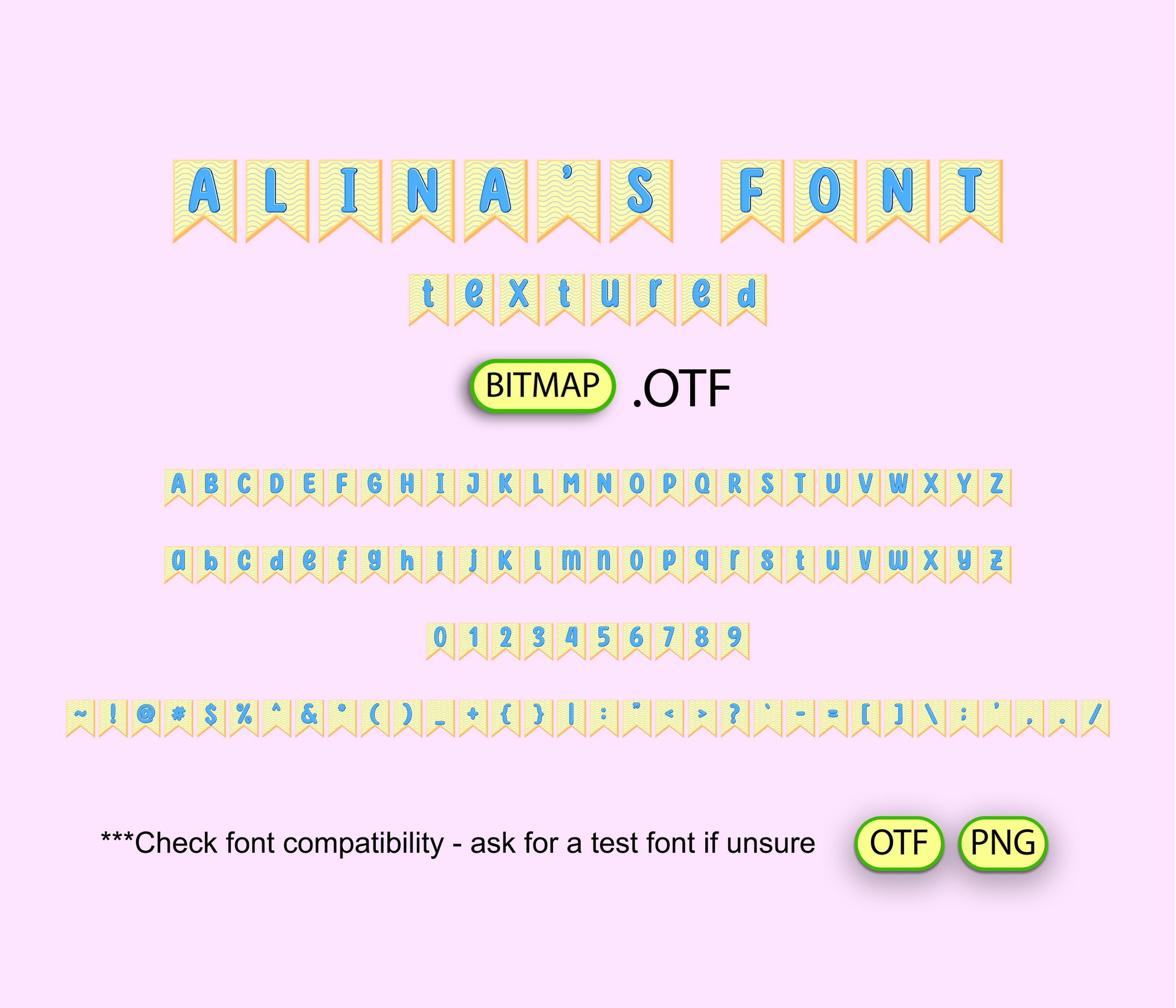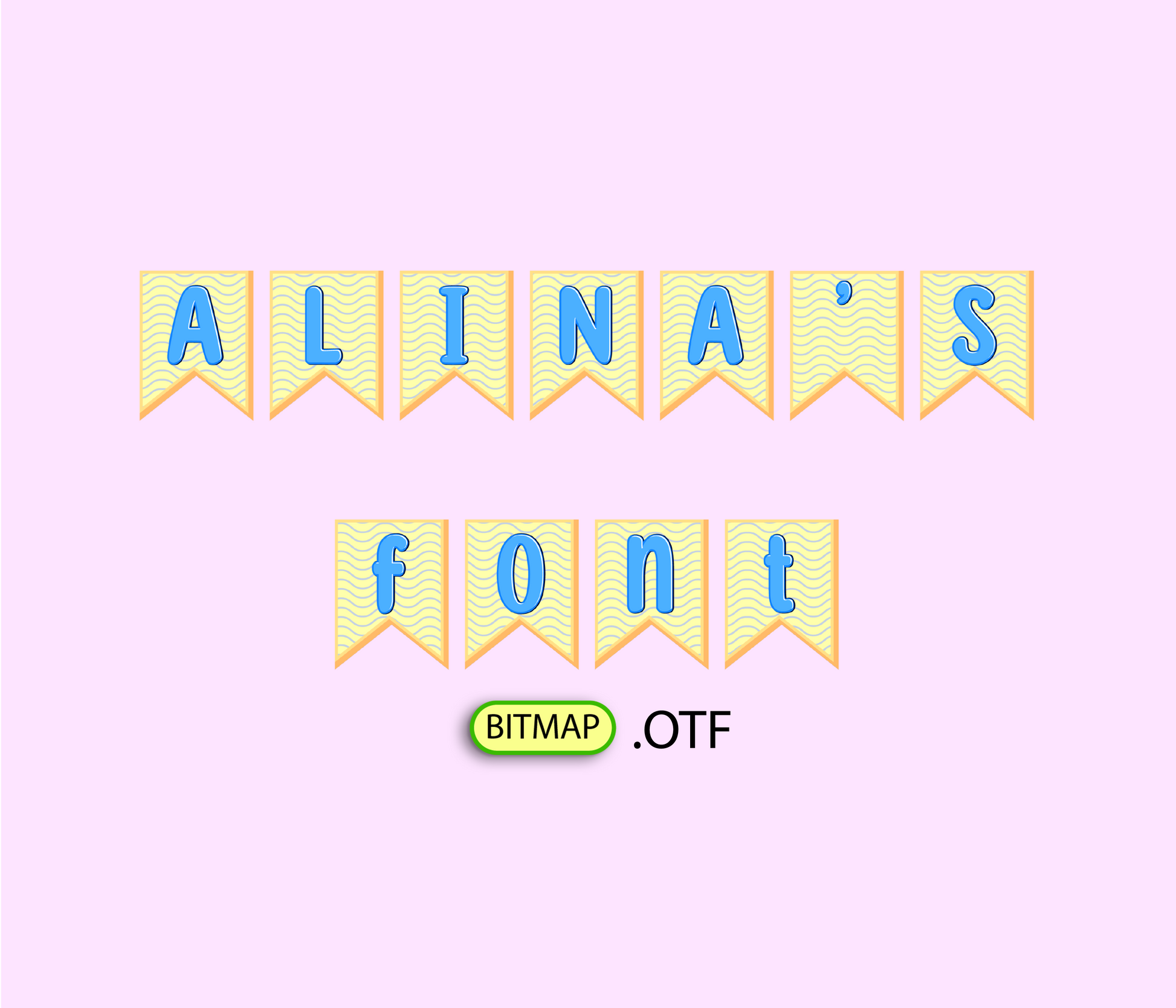
World's Coolest Dad Banner Font Textured
Step into the laugh-filled living room of legendary dad joke mastery, joyful baby boy arrival celebrations, and warmly humorous family festivity culture with our World's Coolest Dad Font Textured, capturing the essence of groan-worthy punchline glory, little boy mischief beginnings, and iconic self-proclaimed fatherhood greatness narratives. Perfect for Father's Day humor gift designers, boy baby shower hosts, family comedy celebration planners, little boy party coordinators, and playful design specialists, this font brings the warm, chuckle-worthy character of beloved classic dad humor and baby boy celebration storytelling to your projects. Create laugh-out-loud invitations, commercial goods, or web content with the jovial presence of legendary dad joke champion and newborn boy festivity narratives.
Jovial Typography for Father's Day, Boy Baby Shower & Little Boy Party Humor Projects
Our World's Coolest Dad Font Textured features warm, chuckle-worthy celebration-banner letterforms nestled in festive pennant flag shapes with groan-worthy punchline textures reflecting the world of legendary dad joke masters, newborn boy mischief welcome festivities, and iconic self-proclaimed fatherhood greatness.
- Event Promotions: Craft laugh-out-loud invitations, banners, and party decorations for Father's Day humor celebrations, boy baby shower gatherings, little boy mischief birthday parties, and family comedy events that radiate the jovial warmth of legendary dad joke champion and baby boy festivity entertainment
- Merchandise Design: Perfect for apparel, nursery wall prints, adhesive graphics, party favors, and humor collectibles that showcase the warm aesthetic of groan-worthy punchline, newborn boy mischief welcome, and self-proclaimed fatherhood greatness themes
- Digital Media: Chuckle up websites, content channels, and social platforms with jovial header designs and imagery that express the warm humor of legendary Father's Day dad joke champions, boy baby shower announcements, and little boy mischief party celebrations
- Creative Content: Add signature punchline and baby boy mischief flair to dad humor illustrations, shower artwork, and imaginative projects inspired by beloved classic dad joke champion and newborn boy welcome chronicles
- Personal Projects: Stir warm chuckle-worthy paternal humor and baby boy joy into memory albums, handcrafted gifts, nursery decorations, and living space items inspired by the world of legendary dad joke champion and newborn mischief celebration characters
Our font pays tribute to the world of dad joke wonder, newborn boy mischief celebration culture, and generation-spanning classic fatherhood humor festivity, empowering your projects with its warm and chuckle-worthy jovial character. Whether crafting Father's Day materials, designing boy baby shower décor, creating little boy party supplies, or adding a dad joke champion touch to personal projects, this font communicates the warm essence of legendary family comedy celebration magic. Ready to deliver groan-worthy paternal and baby boy mischief humor into your creations? This font is your key to attention-grabbing, impactful design.